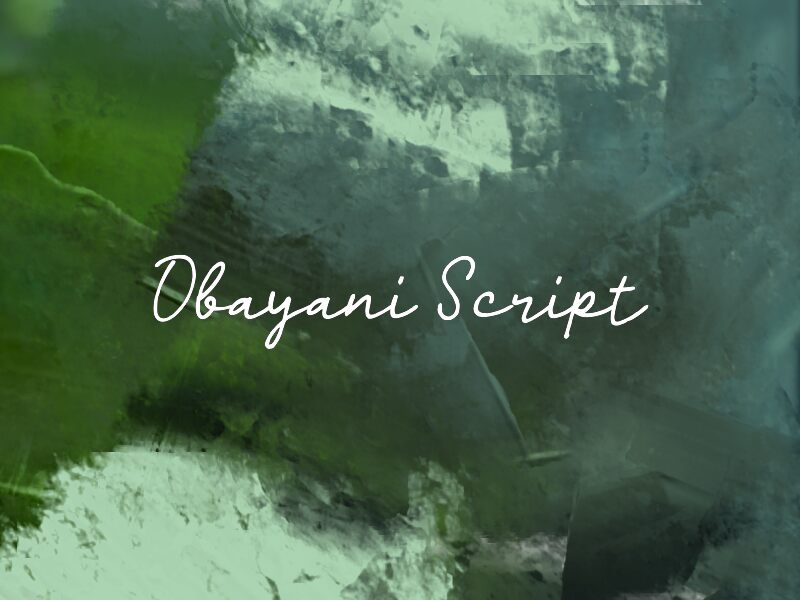
Obayani Script
Obayani Script font by wep is a free handwritten script font that captures the feel of a smooth, inky signature without losing clarity. The letters flow with an easy, natural slant, and the strokes look like they were drawn with a fine pen—loose and personal, but not messy. It’s the kind of script that reads quickly at a glance, solving the usual problem of cursive fonts that look charming in a sample and chaotic in real layouts.
Using Obayani Script, you can add a human touch to branding, product packaging, quote graphics, social posts, invitations, and scrapbook-style headings. This free font has a relaxed rhythm that keeps lines from feeling stiff, which works beautifully for friendly brands and personal projects alike. For a clean, modern combo, pair Obayani Script with a simple sans-serif for body text and let this script handle titles and short phrases at larger sizes.